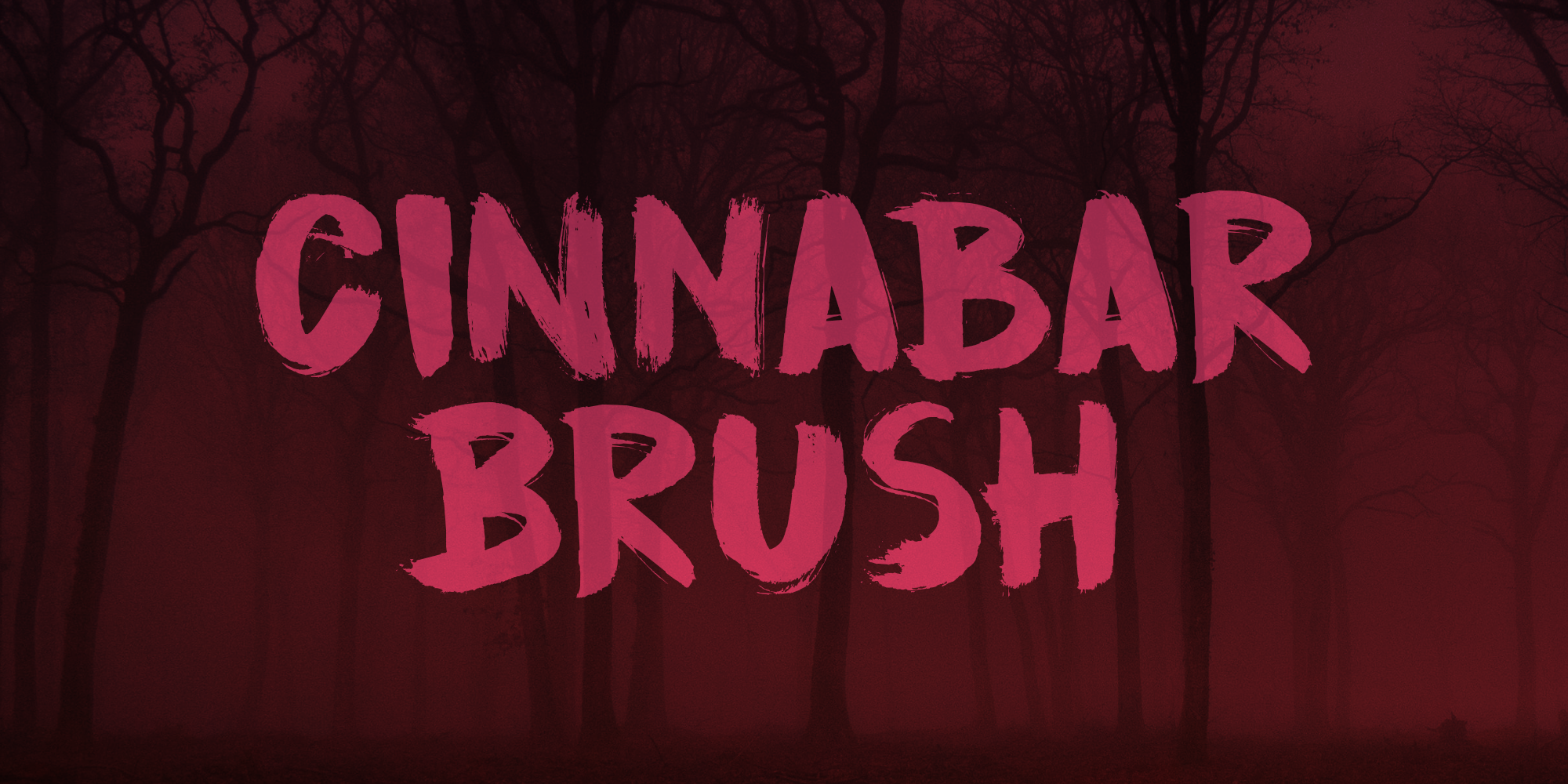
The Cinnabar Brush Font is ideal for Asian-inspired restaurant branding, traditional calligraphy designs, oriental art exhibitions, zen meditation center materials, Chinese New Year celebrations, martial arts studio signage, tea ceremony invitations, and cultural festival posters. This expressive typeface excels in projects for Asian restaurants, cultural centers, meditation studios, martial arts schools, and businesses seeking to capture the spiritual essence and artistic beauty of East Asian brush painting traditions.
What makes the Cinnabar Brush Font exciting is its authentic recreation of traditional Chinese brush calligraphy with fluid strokes and meditative energy. The font features naturally flowing letterforms with visible brush textures, ink variations, and organic movements that capture the contemplative spirit of ancient calligraphic masters. Its spiritual character and artistic authenticity make it perfect for projects requiring genuine Eastern wisdom and cultural respect. The font's meditative quality and traditional craftsmanship transform digital text into mindful artistic expressions.
The Cinnabar Brush Font family includes artistically-inspired variations: Light Brush, Regular Stroke, Bold Paint, Dry Brush, Wet Ink, and Zen versions. Each style maintains the font's calligraphic character while offering different brush techniques and ink flow effects for diverse Asian-themed applications. The family also features traditional Chinese symbols, bamboo ornaments, and Eastern decorative elements that enhance cultural design projects.
Whether you're developing Asian brand identities, creating cultural marketing materials, or designing traditional promotional campaigns, the Cinnabar Brush Font Free Download provides the perfect solution for projects requiring authentic East Asian typography. This remarkable typeface brings genuine calligraphic artistry to design work, making it an essential resource for designers celebrating Eastern philosophy, traditional craftsmanship, and the meditative beauty of brush painting art.